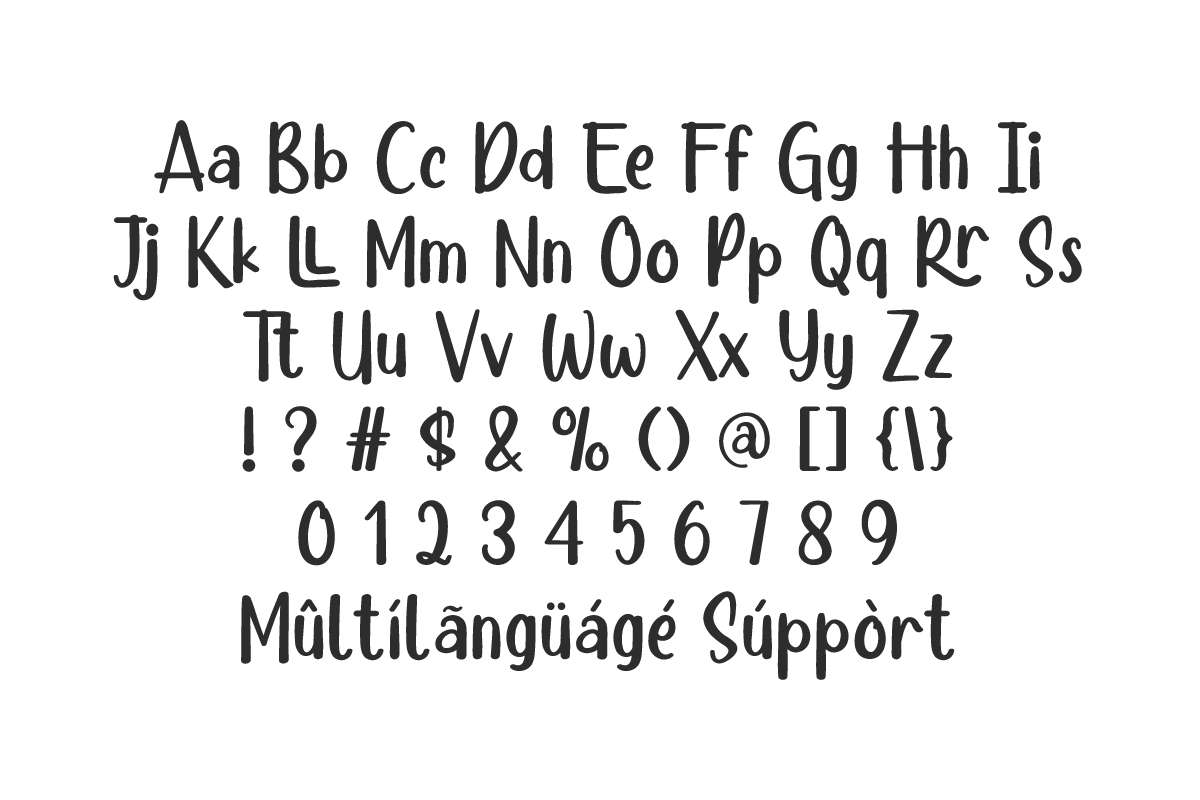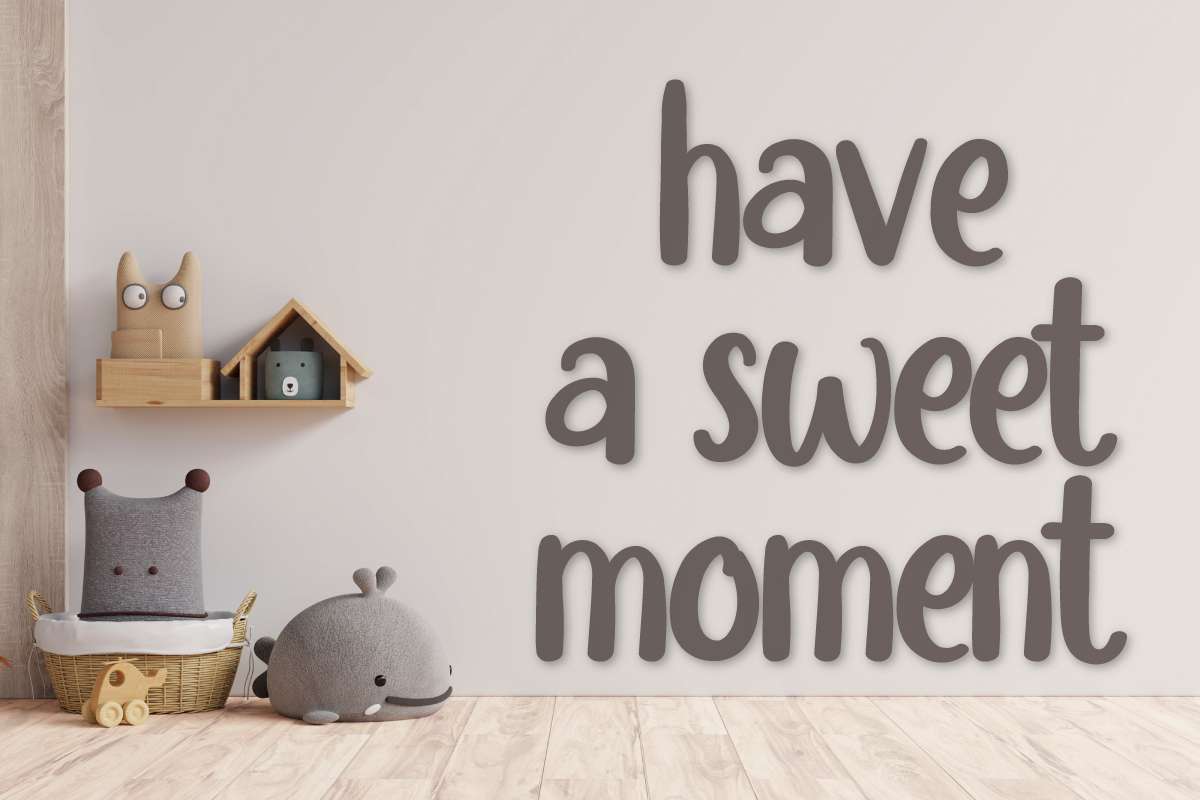
King Cartoon Font
King Cartoon Script Font
It’s a funny cartoon brush handwriting font. This font is carefully crafted in each letter so we can make sure it looks good, bring natural handwriting and perfect basic letters. Carefully designed to work together in harmony. This one should make your designs instantly professional and jaw-dropping!
King Cartoon Font includes full set of Uppercase and Lowercase Basic Characters, Numerals and Punctuation. Also it contains ligatures on letters, to make it flowless characters to perfectly make awesome look that add more aesthetic fonts to perfect your extraordinary project. King Cartoon will be great for birthday party, clothing, kids, school, storybook, website etc